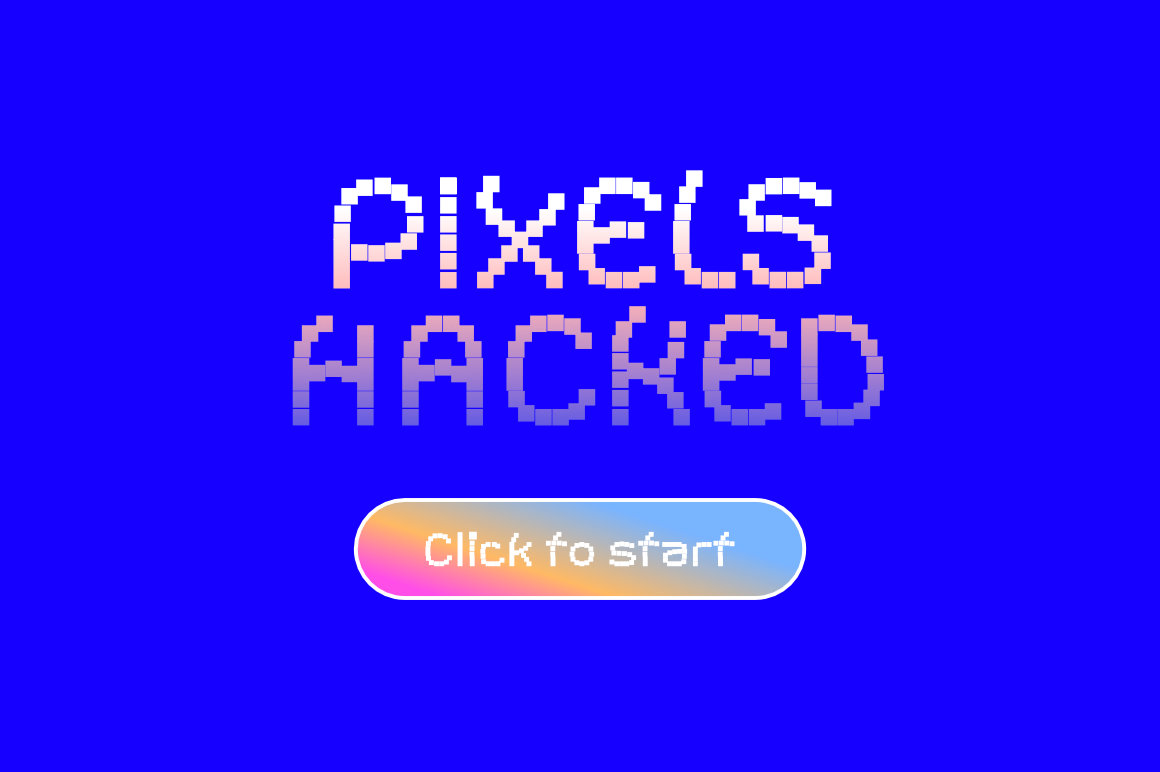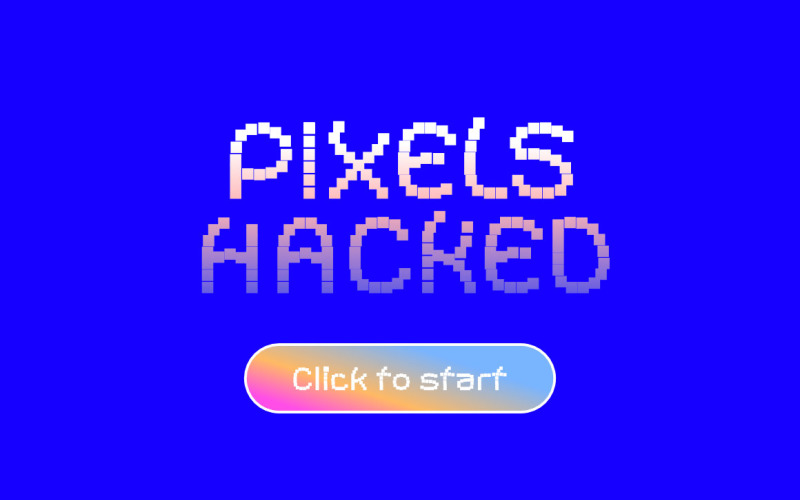
ROINERT SQUARED techno pixel Font
Over time, pixel fonts evolved into a symbol of nostalgia and innovation, blending retro charm with modern creativity. Today, they are celebrated not just for their functionality but for their ability to evoke a sense of timeless digital artistry
Versatile Styles: Regular and Italic options for diverse design needs.